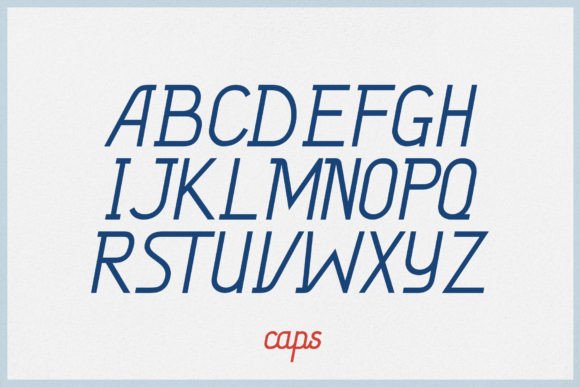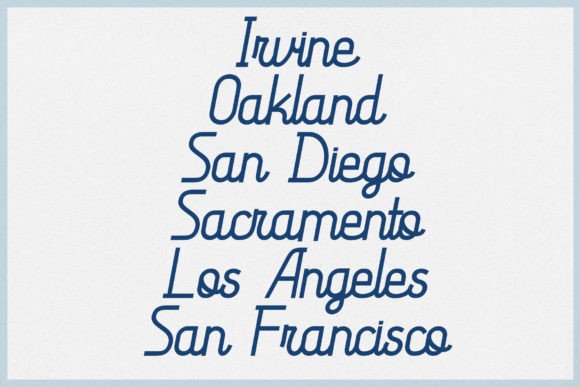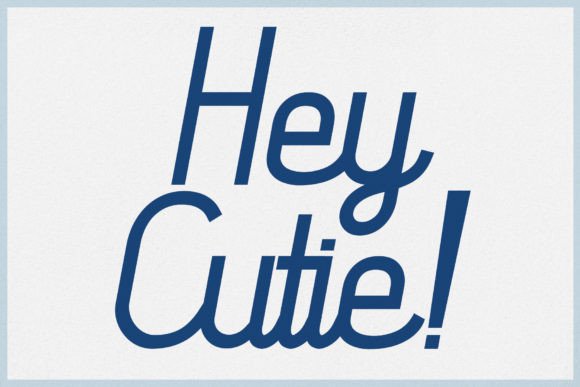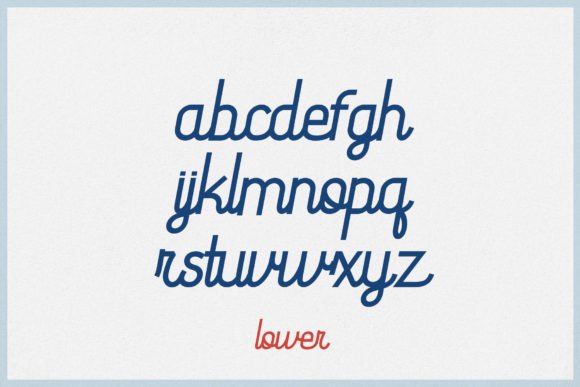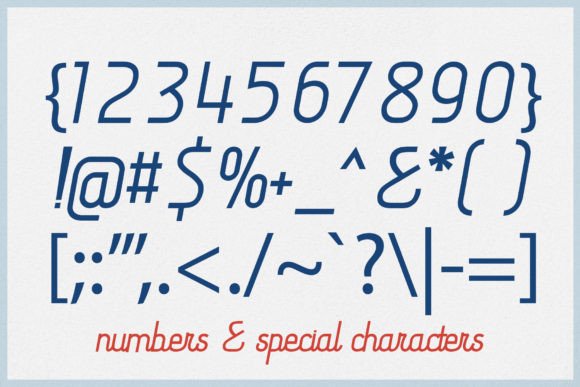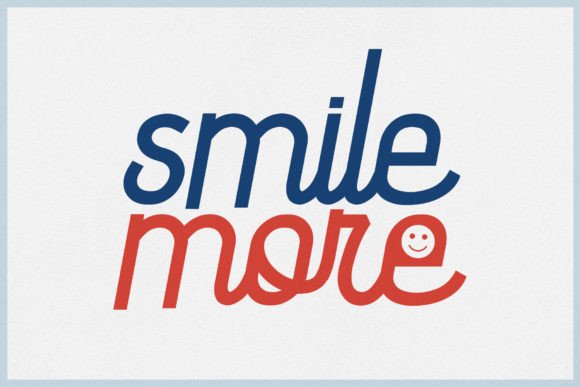
Introduction to Pineberry Font
Have you ever stumbled upon a font that transports you back to a bygone era, instantly sparking your creativity and imagination? For me, that moment came when I discovered the enchanting Pineberry Font. Its whimsical, handwritten style, reminiscent of 1960-1970s graphic design, has a way of making even the most mundane projects feel like a high-quality creative endeavor.
As a designer, there’s nothing quite like having a valuable design resource at your fingertips. The Pineberry Font, with its beautiful mono-weight curvilinear forms, is an absolute gem. Whether you’re working on a packaging design, a book cover, or even a wedding invitation, this font’s playful personality shines through, making it the perfect addition to any project.
Pineberry Font Key Features
- Unique blend of modern and vintage design elements, ideal for creative projects and high-quality print materials.
- Includes a range of glyphs and characters, making it suitable for use in various languages and creative applications.
- Perfect for designers and artists looking for a distinctive and creative font to elevate their next project.
Honest Review: Pineberry Font
I recently came across the Pineberry Font and was excited to dive in and see what it had to offer. As a designer, I’m always on the lookout for high quality design resources that can elevate my creative projects. Let’s take a closer look at this font and see how it stacks up.
- ✨ The font is well-designed and has a unique, eye-catching style that’s sure to grab attention.
- ⚠️ The font is only available in a limited range of weights and styles, which may limit its versatility.
- ⚠️ Some users have reported issues with the font’s legibility in certain font sizes and resolutions.
Overall, I was impressed with the Pineberry Font and its potential to elevate creative projects. While it has some limitations, it’s a solid design resource that’s definitely worth considering. If you’re looking for a unique and eye-catching font for your next design project, the Pineberry Font is definitely worth checking out.